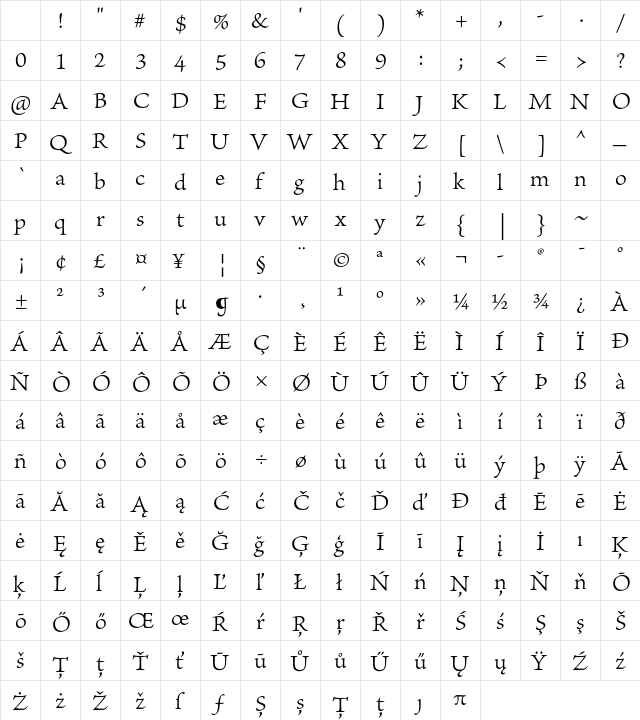
Complete Brioso Pro Light Caption glyph index. Displaying only characters natively supported by Brioso Pro Light Caption font.
Brioso Pro is a composed and adaptable typeface that performs quietly and consistently across a wide range of design contexts. Its slender proportions lend an understated elegance to any composition.